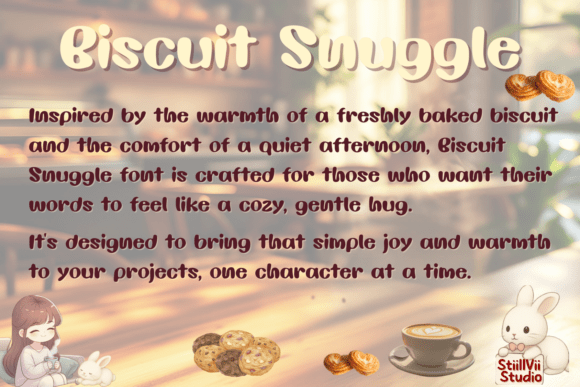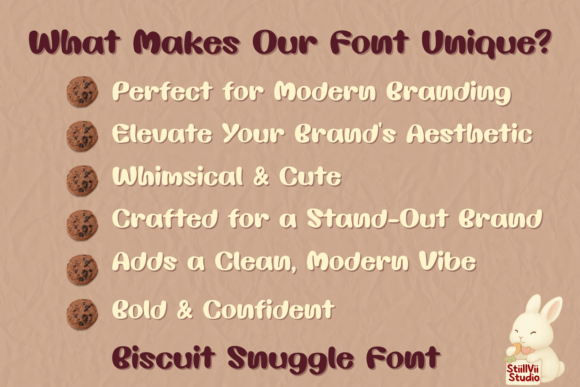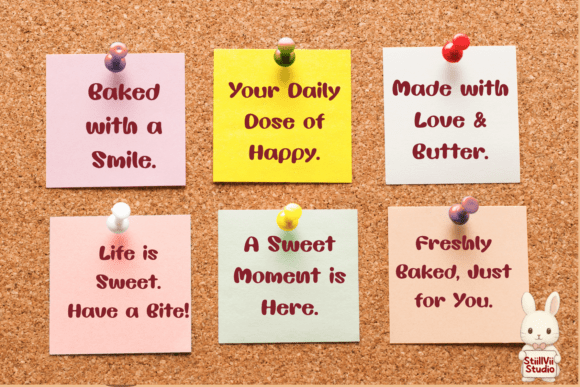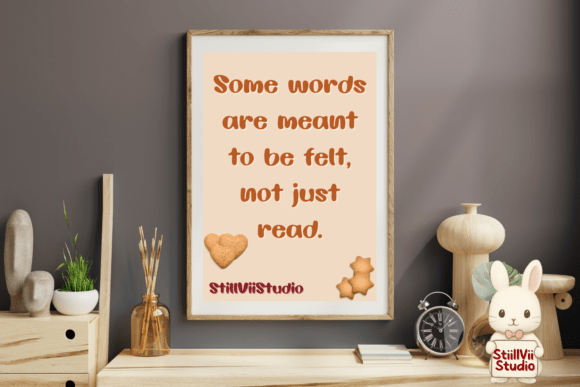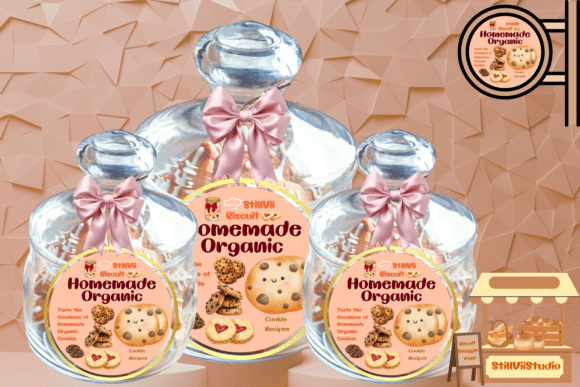
🍪 Freshly Baked Typography: Sweet, Warm, and Full of Love! 🍪
Are you looking for a font that can add a delicious touch to your designs? Look no further than Biscuit Snuggle, a cute and chunky display font that’s inspired by the warmth of freshly baked treats and cozy afternoons. With its bold, rounded edges and friendly personality, Biscuit Snuggle is designed to stand out and bring an instant feeling of joy and homemade goodness to your projects.
What Makes Biscuit Snuggle Special?
Biscuit Snuggle is more than just a font – it’s a “comfort food” for your eyes! Its chunky and bold design makes it perfect for headlines, logos, and packaging, with high readability that’s sure to grab attention. The thick, smooth lines are also super easy to cut with Cricut & Silhouette, making it a crafter-friendly font that’s perfect for DIY projects.
Why You’ll Love Biscuit Snuggle
• 🍞 Chunky & Bold: High readability, perfect for headlines, logos, and packaging.
• ✂️ Crafter Friendly: The thick, smooth lines are super easy to cut with Cricut & Silhouette (no tiny details to weed!).
• 🎀 Versatile Charm: Looks amazing on food packaging, t-shirts, and social media graphics.
• 🌍 Multilingual Support: Ready for international projects with accented characters.
Perfect For
• ✨ Bakery Branding & Food Packaging: Add a touch of warmth and coziness to your bakery branding and food packaging with Biscuit Snuggle.
• ✨ Stickers and Kids’ Designs: Create fun and playful stickers for kids with Biscuit Snuggle’s cute and chunky design.
• ✨ T-Shirts and Merchandise: Use Biscuit Snuggle to create eye-catching t-shirts and merchandise that will stand out.
• ✨ Social Media Graphics: Add a touch of personality to your social media graphics with Biscuit Snuggle’s friendly and approachable design.
Tips and Tricks for Working with Biscuit Snuggle
Here are a few tips and tricks for working with Biscuit Snuggle:
• Use Biscuit Snuggle in combination with other fonts to create a unique and eye-catching design.
• Experiment with different colors and textures to add depth and interest to your design.
• Don’t be afraid to get creative and try out new and unusual design ideas!
In conclusion, Biscuit Snuggle is a unique and versatile font that’s perfect for designers and crafters who want to add a touch of warmth and coziness to their designs. With its chunky and bold design, crafter-friendly features, and multilingual support, Biscuit Snuggle is the perfect choice for a wide range of projects, from bakery branding and food packaging to stickers and kids’ designs. So why wait? Download Biscuit Snuggle today and start creating your own delicious designs! 🍪